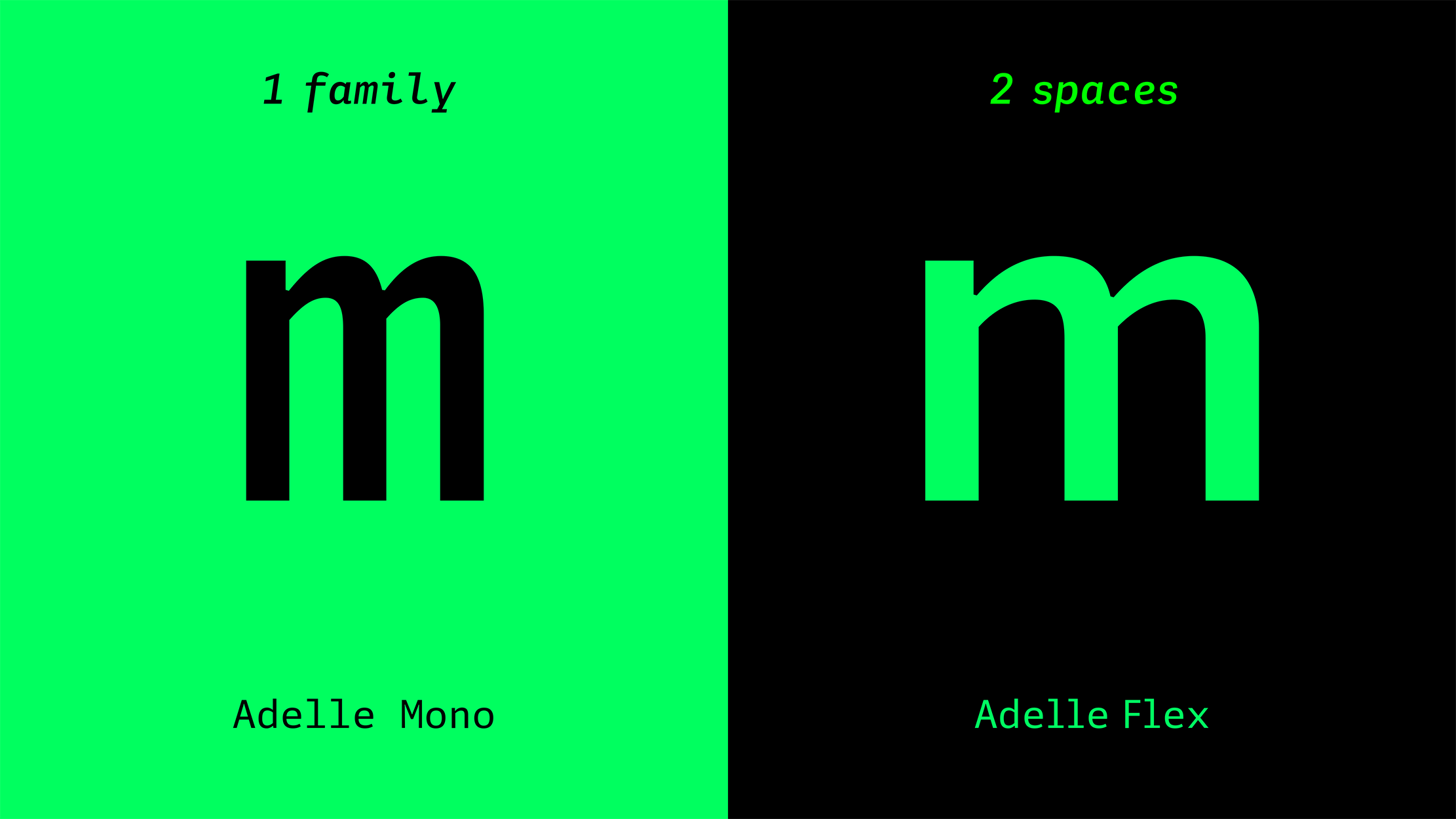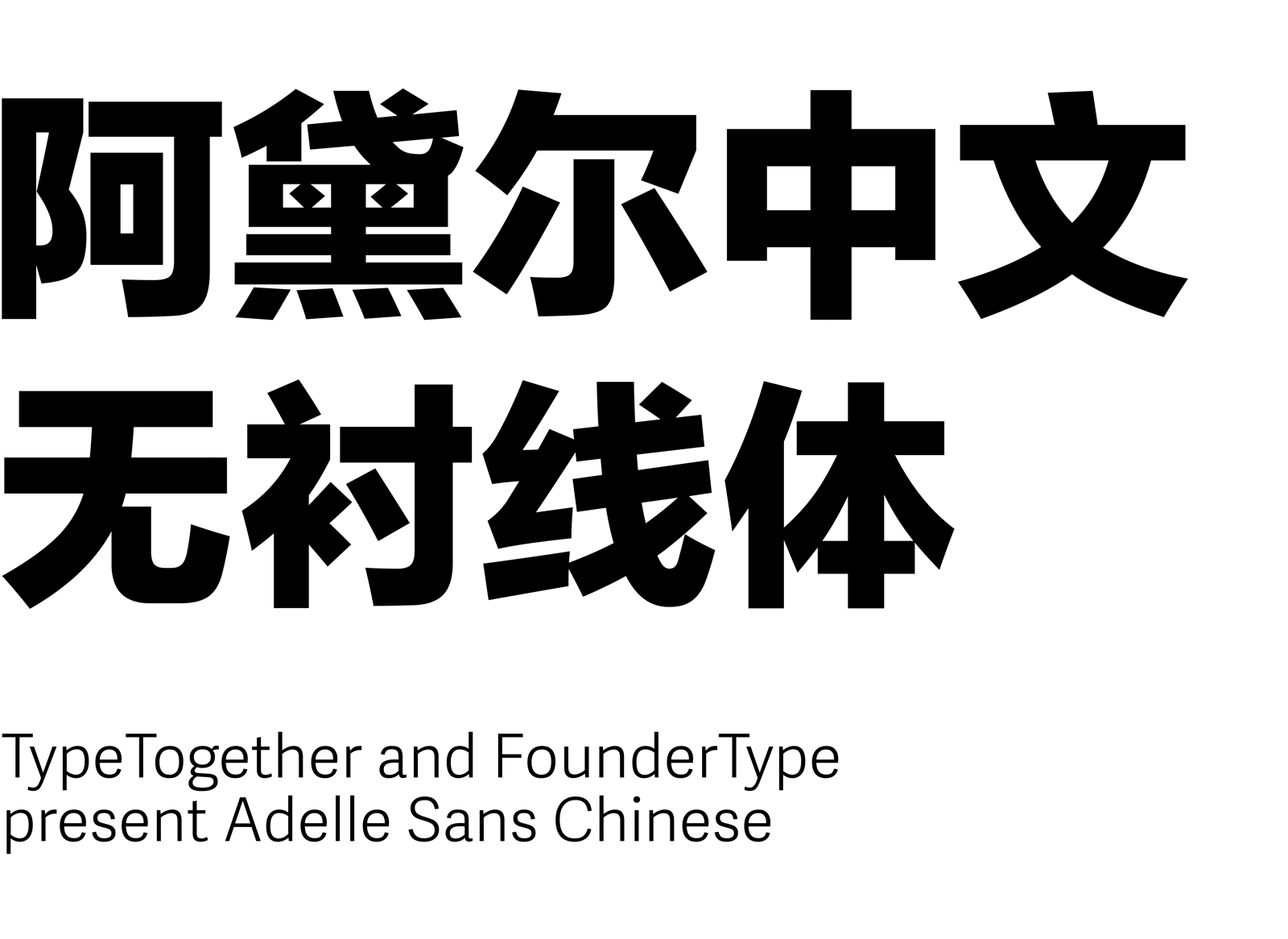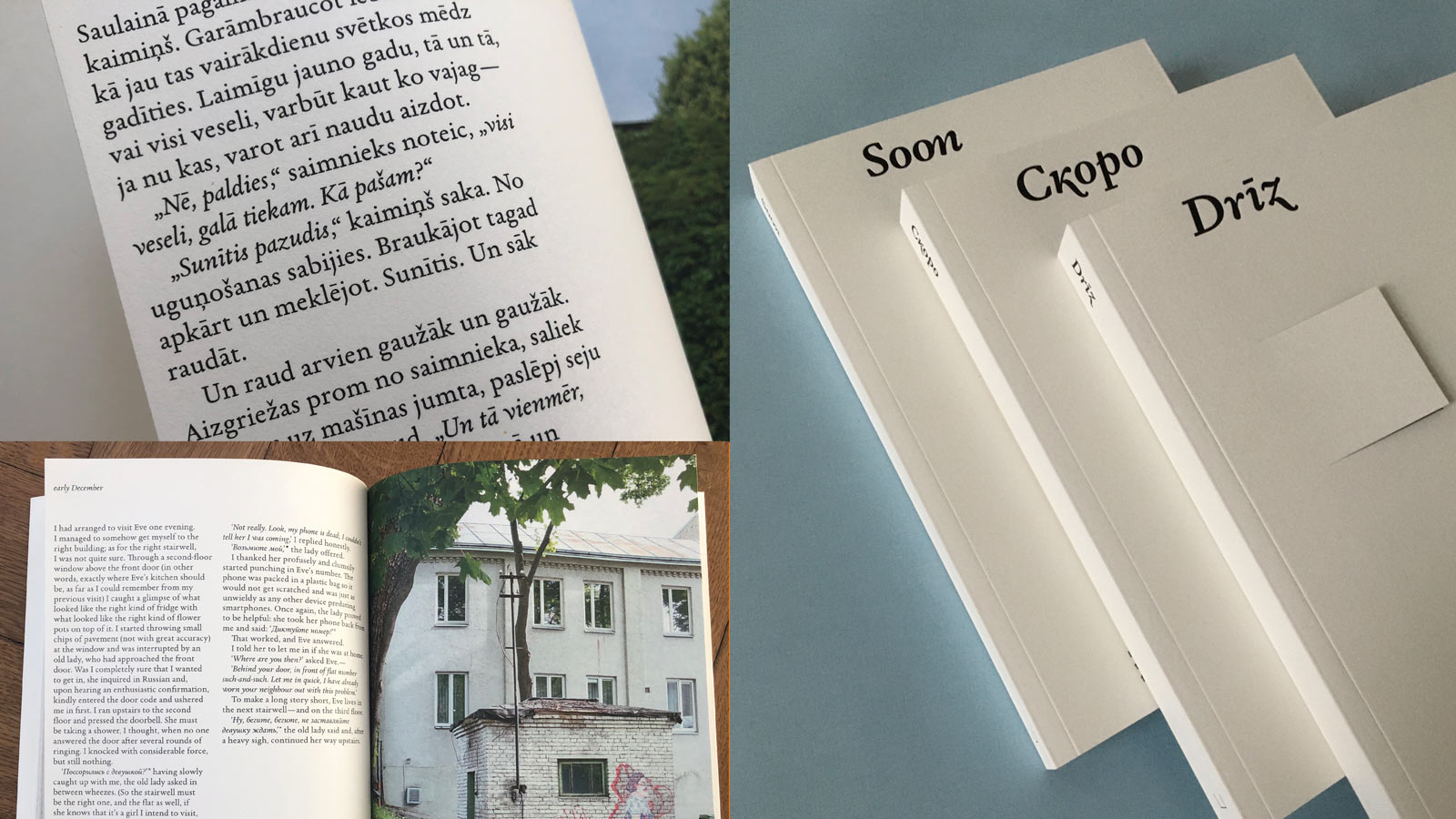
It is our great honour to formally announce our partnership with the preeminent Chinese font foundry FounderType! While TypeTogether typefaces have been available in China as standalone families through FounderType for a while, our first official global collaboration is Adelle Sans Chinese — harmonising and bundling the FounderType Lanting Hei family with corresponding Adelle Sans styles. Adelle Sans Chinese ensures that all Chinese characters and all Latin characters aren’t just partners, but are equals within multiscript layouts, including punctuation. Founder Type is the most important font developer in China, with their typefaces being widely used in newspapers, advertising, books, packaging, mobile devices, television, games, software, branding, and so much more. And this is just the beginning.
Garalda graces art publication Soon
Fine books need fine typography, and even more so when speaking of works in the fine art category. Garalda was made by Xavier Dupré and has been used in the trilingual publication Soon as part of the art project #mikropilsonis, developed by Riga International Biennial of Contemporary Art for its inter-seasonal programme microRIBOCA, 2019. The book was designed by Latvian typographer and book designer Alexey Murashko, who has also extended Garalda to the Cyrillic script. Murashko describes Garalda as “perfect, calm, humanistic, with ligatures that look like fine handwriting,” and more. Click through to see how Garalda’s legacy of finesse graces each page.
Adelle Mono sneak peek
The large multiscript, multi-award winning Adelle family is getting a delivery from the font stork soon: Adelle Mono is on its way! Due in one month, Adelle Mono will have mono-width and multi-width styles, several weights, and an italic companion. It’s been tested and approved for ease of use by coders, developers, and pro designers. Time to update your Sublime, Terminal, or your email to something fresh and focused — Adelle Mono is coming soon!